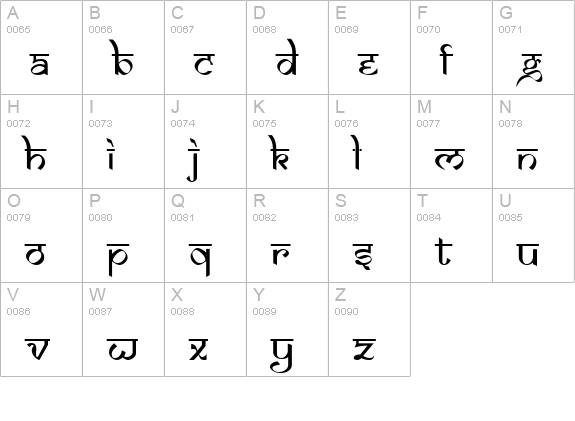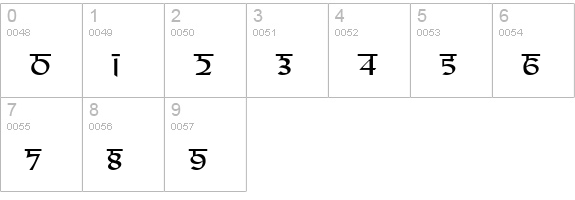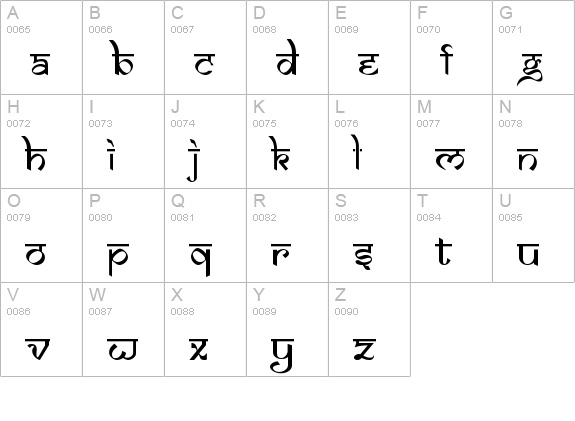
Samarkan Normal is the standard, neutral variant in the Samarkan typeface family \xE2\x80\x94 well suited to general body text, paragraphs, and standard typographic work.
Samarkan Normal is a unique and stylish font that is sure to make any text stand out. With its intricate and eye-catching design, this font is perfect for adding a touch of elegance to any project. Whether you are designing a logo, creating a poster, or simply want to add some flair to your social media posts, Samarkan Normal is the perfect choice. One of the best things about Samarkan Normal is that it is available for free download at FontsMarket.com. This means that you can easily access this stunning font without having to spend a dime. FontsMarket.com is a trusted source for high-quality fonts, and they offer a wide range of options to suit every design need. Samarkan Normal is not only visually appealing, but it is also highly readable. Each letter is carefully crafted to ensure that it is clear and legible, even at smaller sizes. This makes it a versatile font that can be used for a variety of purposes. Whether you are a professional designer or just someone who enjoys playing around with different fonts, Samarkan Normal is a must-have in your font library. Its unique design and free availability make it an excellent choice for anyone looking to add a touch of sophistication to their designs. So why wait? Head over to FontsMarket.com and download Samarkan Normal today!